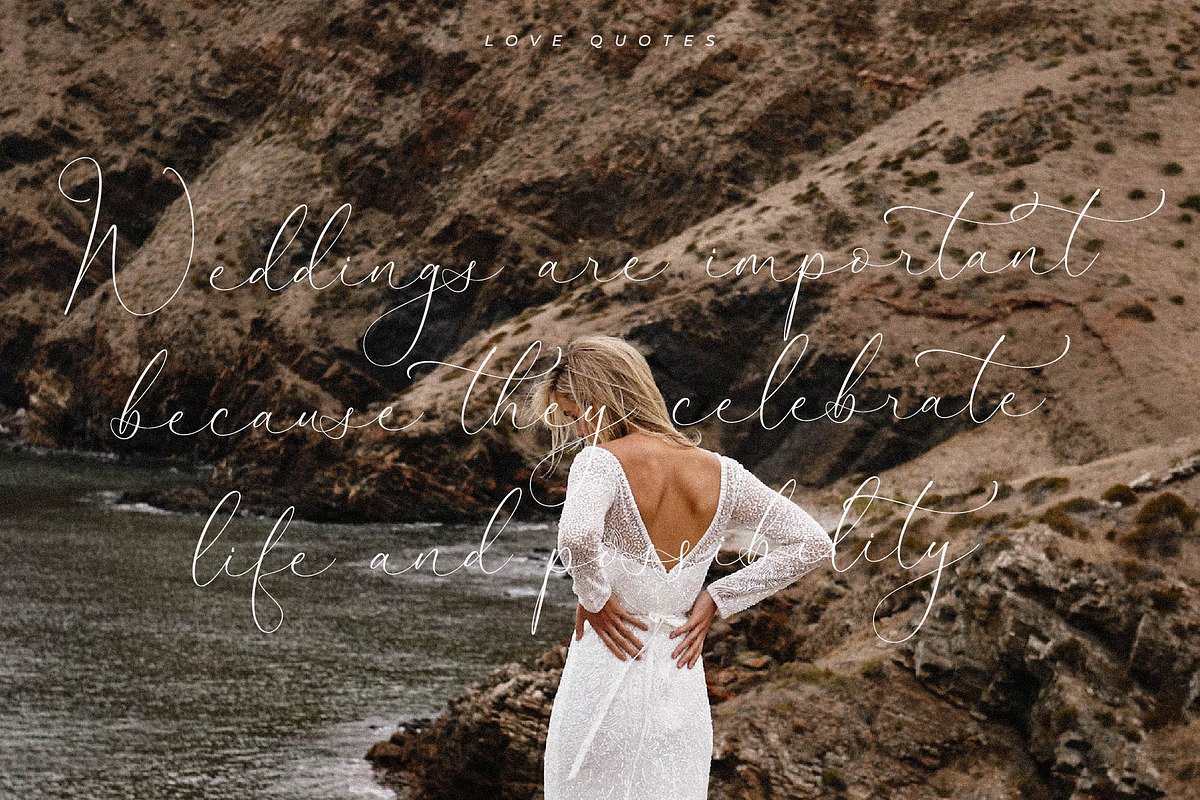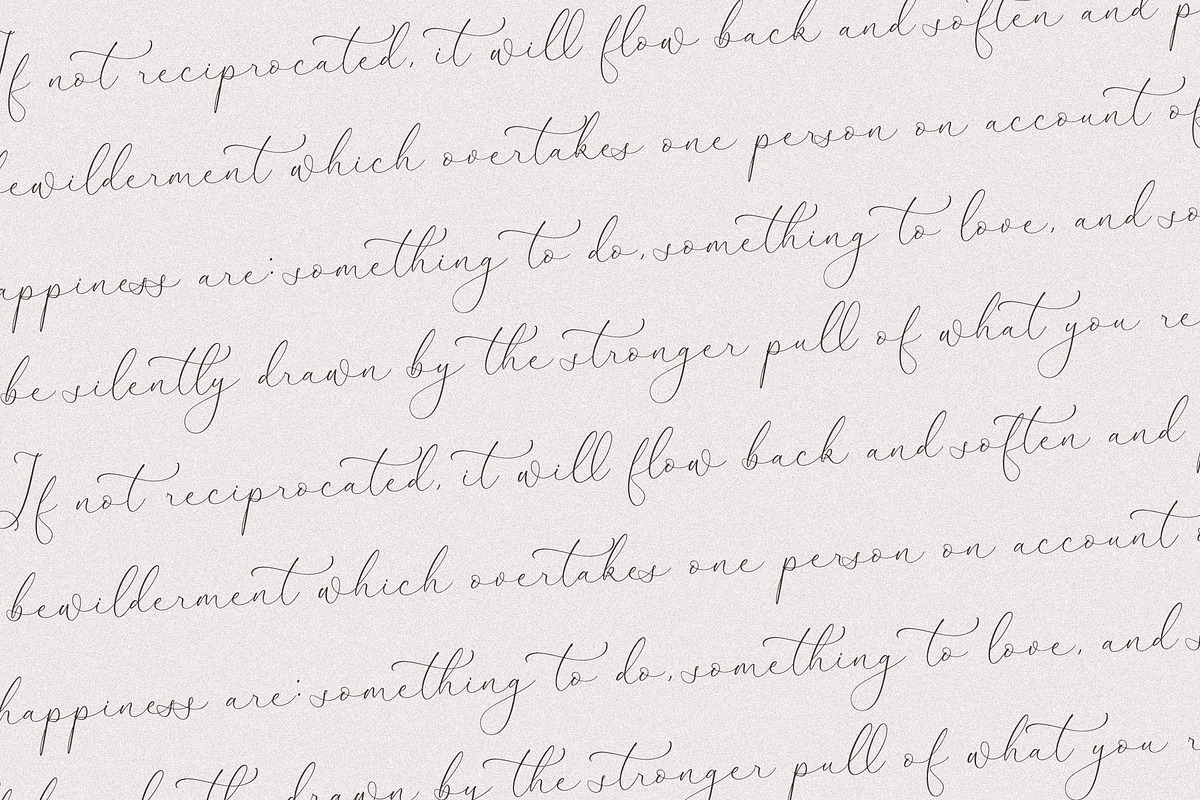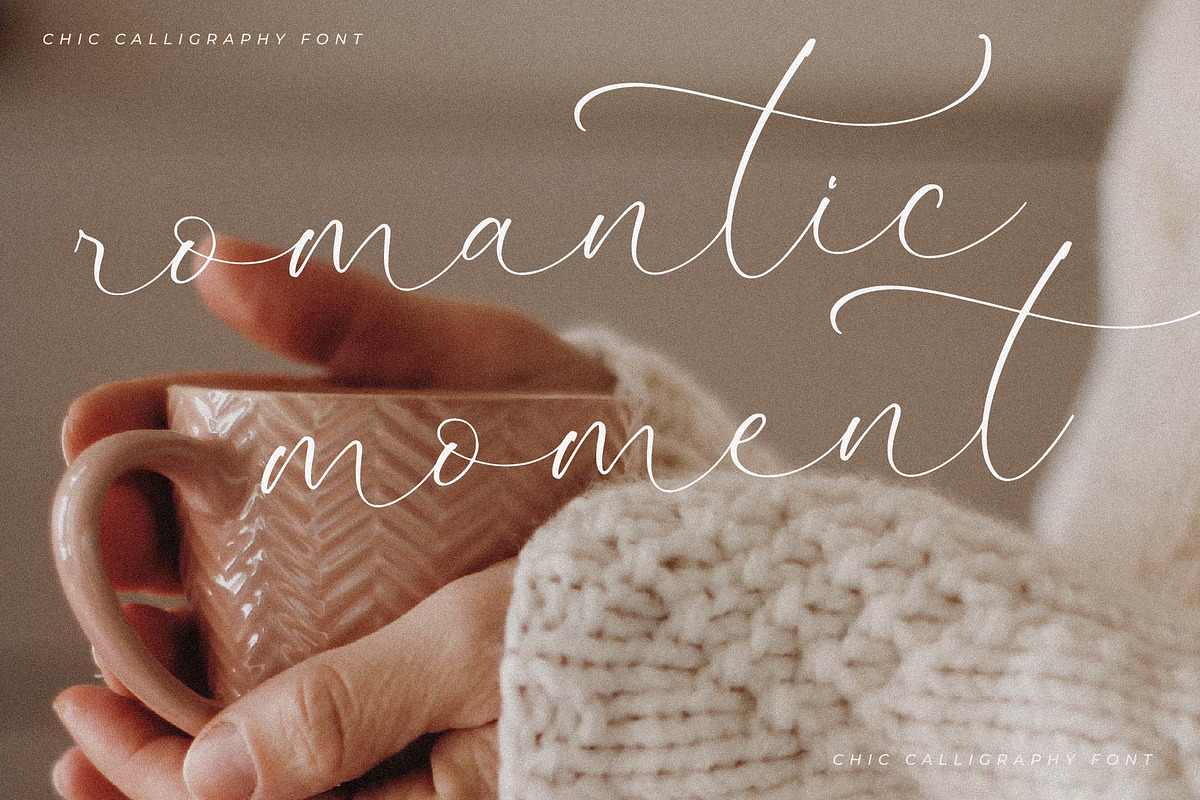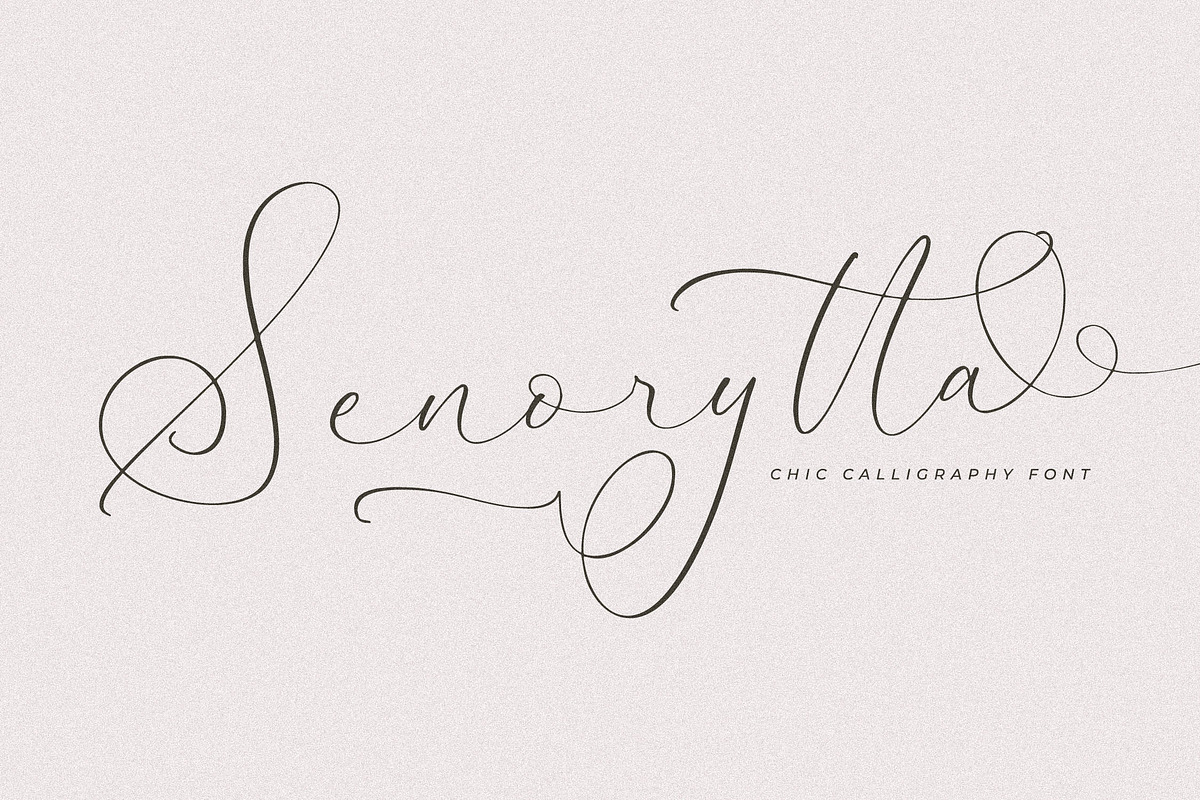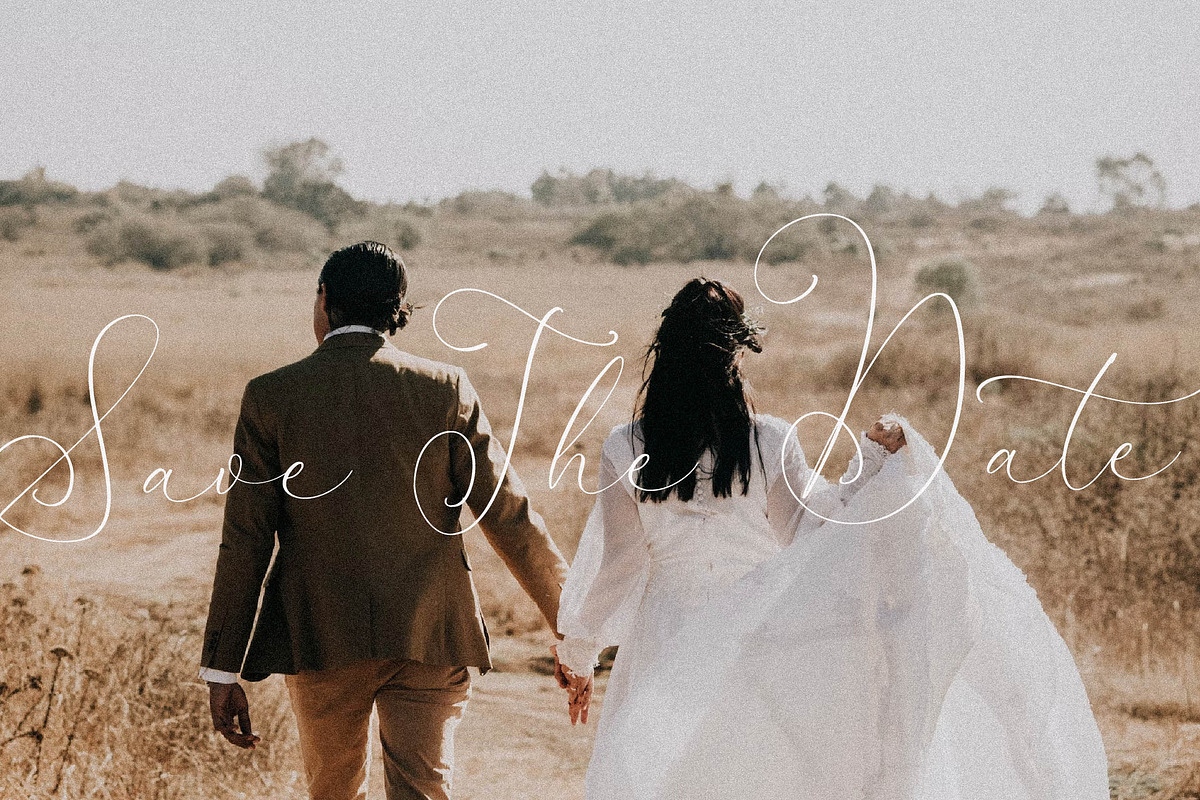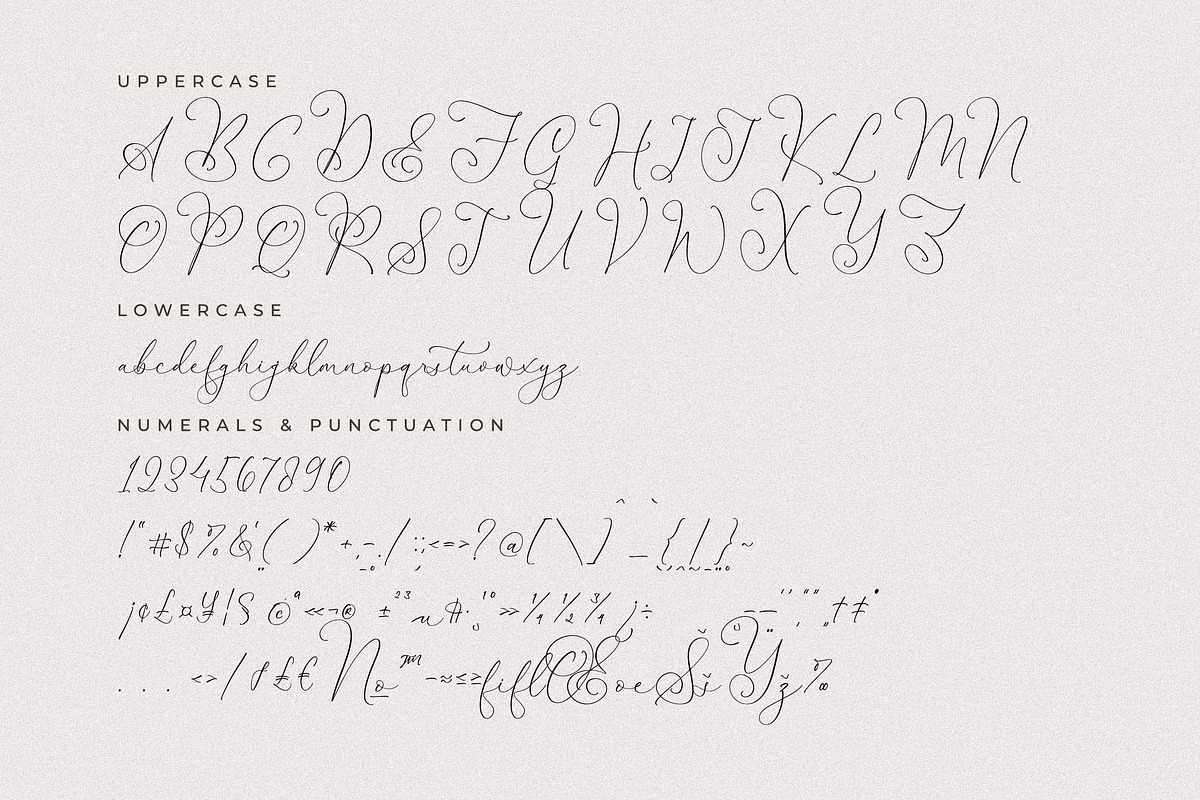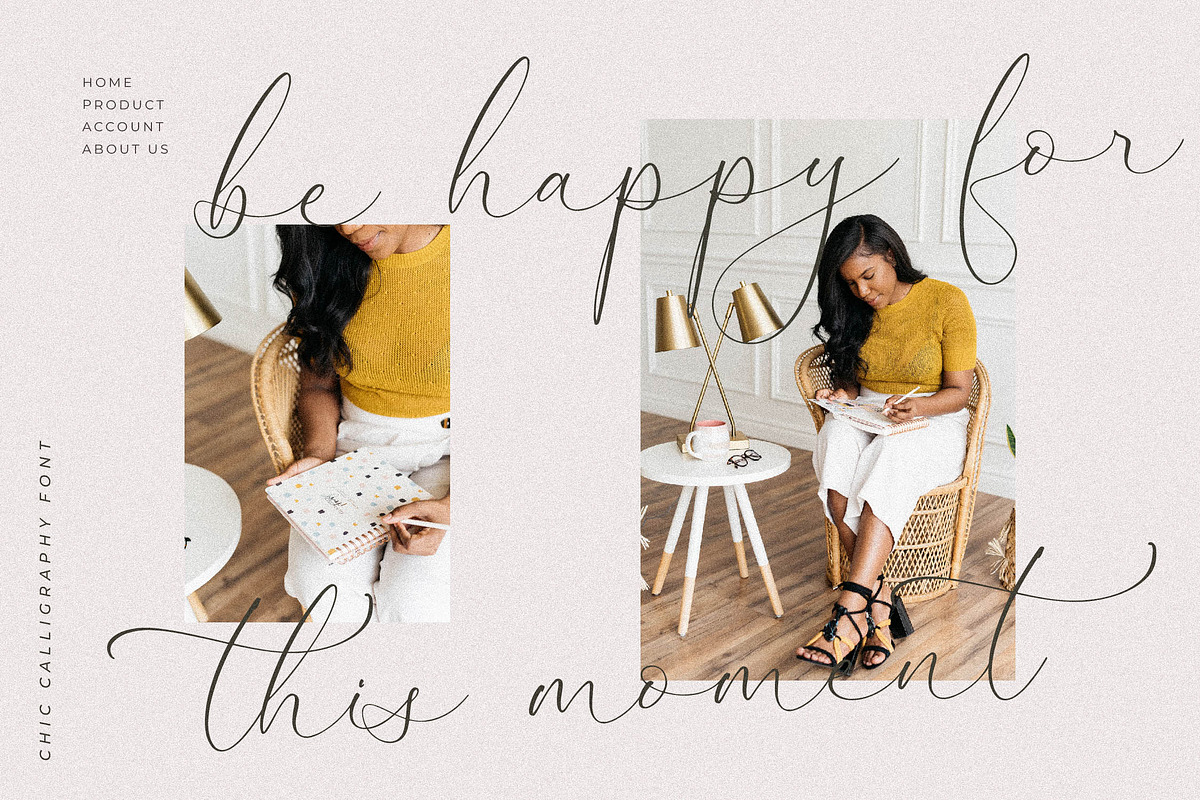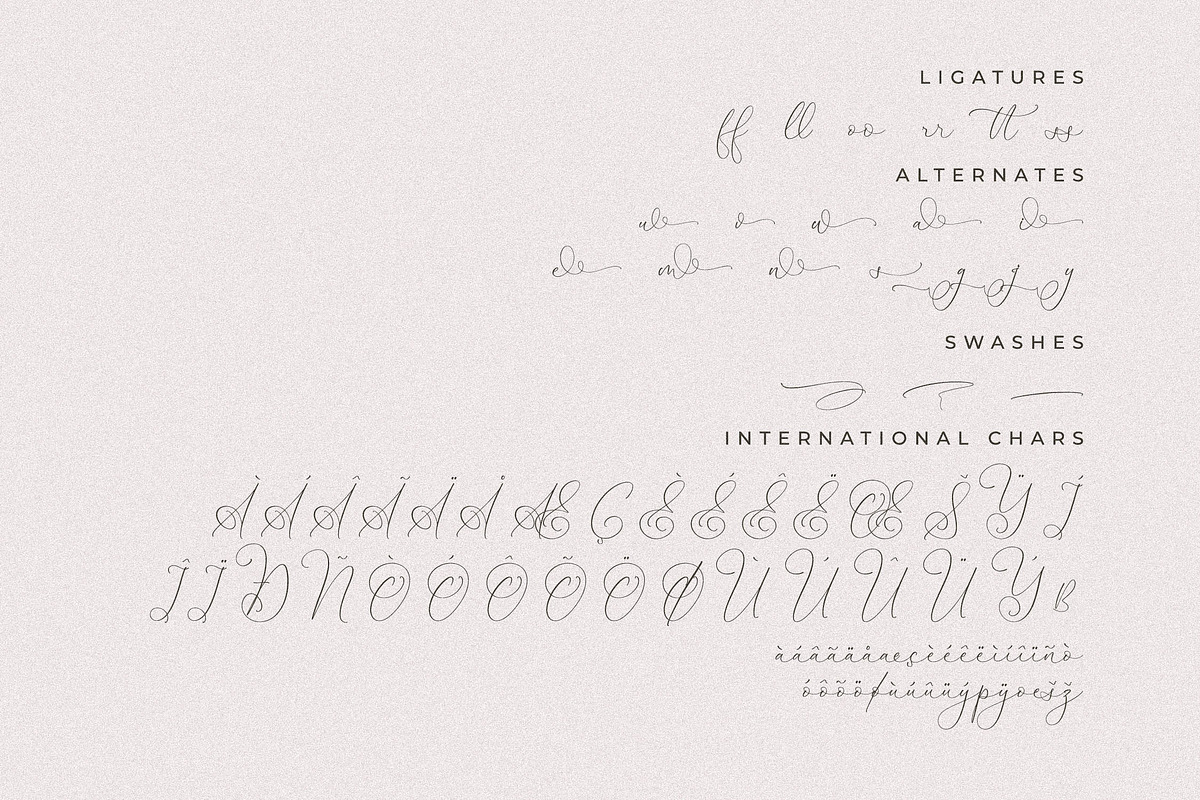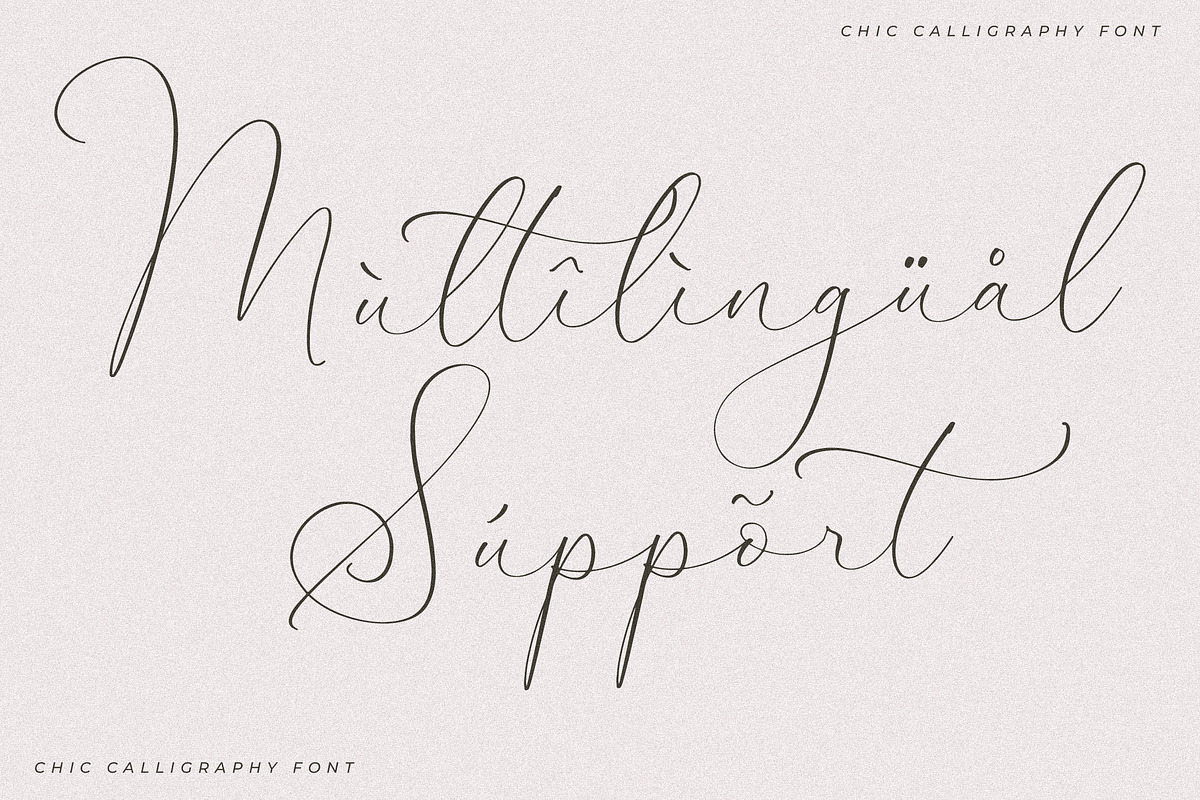
Senorytta Chic Calligraphy Font
Proudly present Senorytta Chic Calligraphy , created by Storytype, A serif modern and classic typeface that has own unique style & modern look. This typeface is perfect for an elegant & luxury logo, book or movie title design, fashion brand, magazine, clothes, lettering, quotes, and so much more.